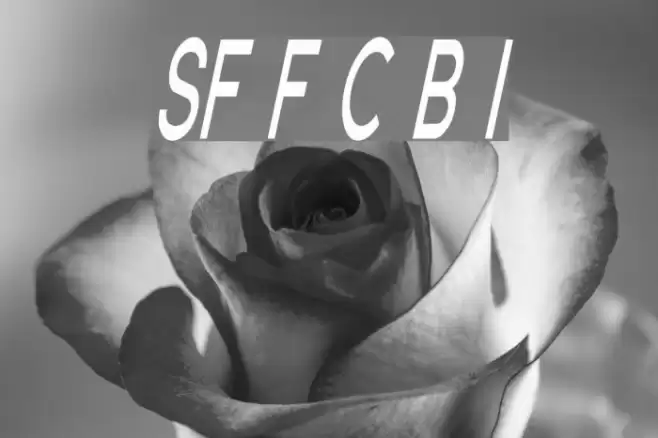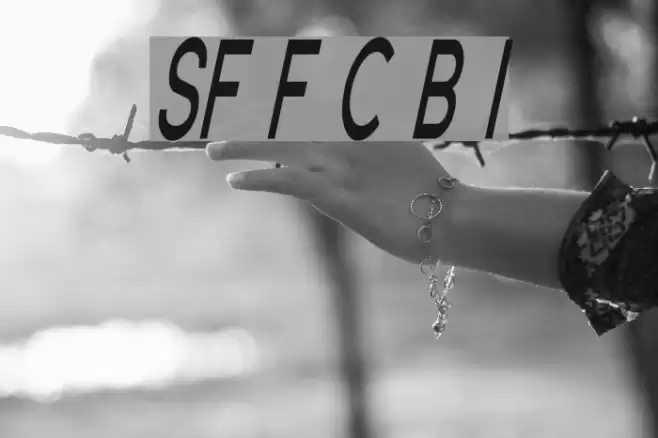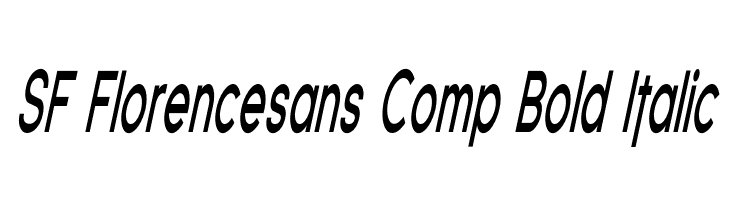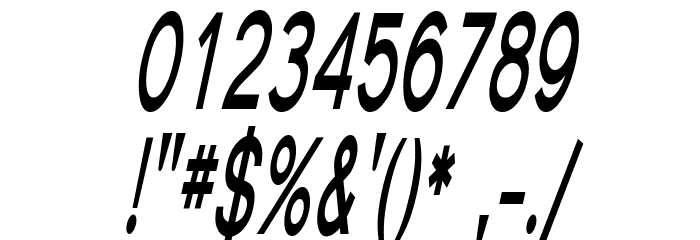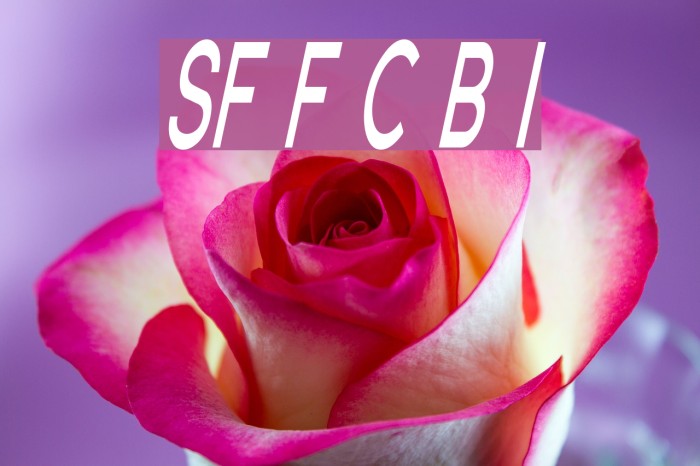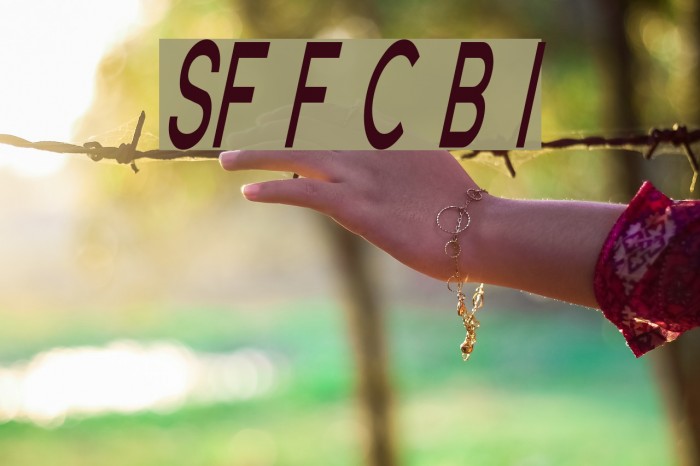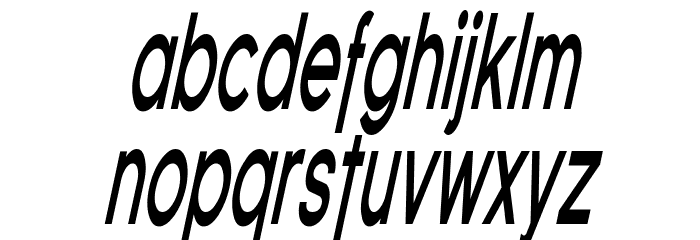
SF Florencesans Comp Bold Italic Font
SF Florencesans Comp Bold Italic Description
This font features a bold and italicized style with a condensed width, giving it a sleek and modern appearance. The characters are slanted, adding a dynamic and energetic feel. The uppercase and lowercase letters maintain a consistent weight, providing a uniform look across the text. The numerals and special characters are designed to match the overall style, ensuring cohesion in any text application. The font's boldness and italicization make it stand out, suitable for attention-grabbing headlines or impactful logos.
A bold, italic, and condensed font with a modern and dynamic style from Uncategorized fonts.